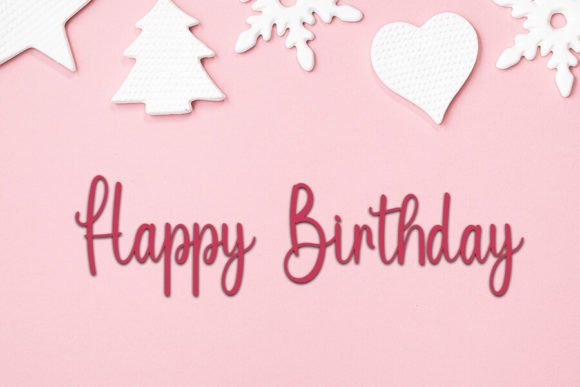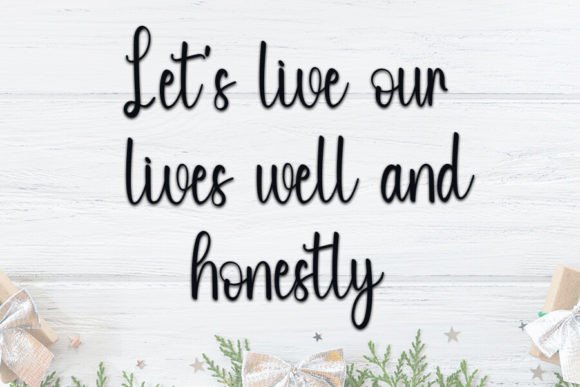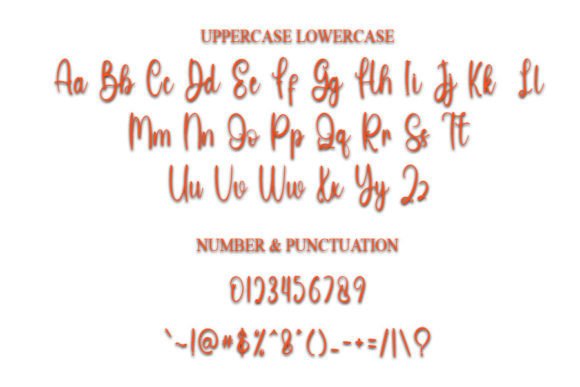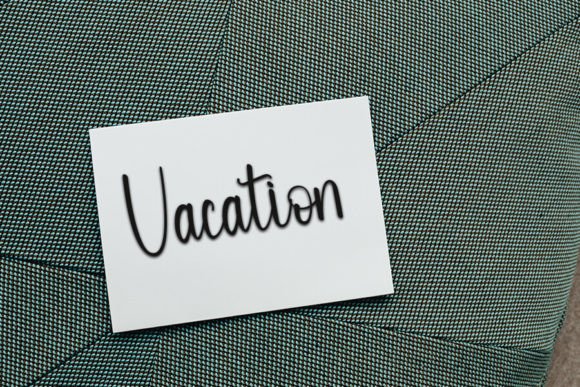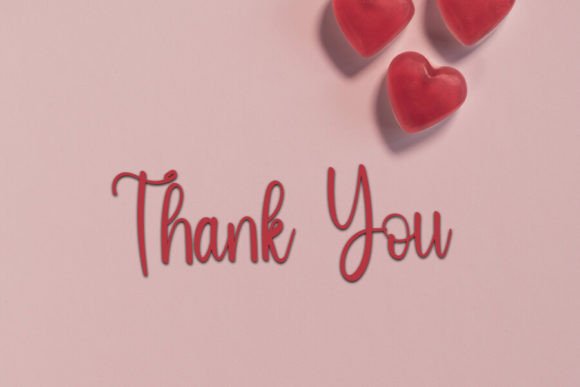
Deck the Halls with Beautiful Typography
There’s something magical about designing for the holiday season. The twinkling lights, the cozy atmosphere, and the joy that fills the air – it’s a time when creativity knows no bounds. As designers, we love to get into the festive spirit, and what better way to do that than with a typeface that embodies the very essence of the season?
Enter the Beautiful Font, a festive and happy typeface that captures the magic of the holiday season. With its decorative elements and unique flair, this font adds a touch of charm to your designs, making it perfect for greeting cards, gift labels, and holiday-themed projects. The Beautiful Font is more than just a pretty face – it’s a valuable tool for designers who want to bring a cheerful and nostalgic atmosphere to their words.
- Unique Characteristic: Beautiful Font features a unique blend of modern and elegant design elements, making it perfect for creating visually appealing documents and designs.
Beautiful Font Review
Overall, I’m quite impressed with “Beautiful Font”. It has a certain charm that’s hard to ignore. ✨ The font is versatile and can be used for both body text and headings, making it a great choice for a wide range of projects.
The font’s character set is extensive, with a wide range of languages supported. This makes it an excellent choice for projects that require multilingual support. Additionally, the font’s customization options are plentiful, allowing users to fine-tune the font to suit their specific needs. ✨
- Extensive character set, supporting multiple languages
- Plentiful customization options
- Great for both body text and headings
Overall, I would recommend “Beautiful Font” to designers who are looking for a versatile and customizable font for their projects. While it may have some limitations, its strengths far outweigh its weaknesses.
Beautiful Font is commonly used in:
- Graphic design and branding projects.
- Print and digital marketing materials.
- Presentations and reports.
Alternatives to “Beautiful Font” for Designers
Lato is a clean and modern sans-serif font. It is suitable for use in body text, headings, and titles. Lato is a good alternative to Beautiful Font as it has a similar clean and elegant feel, but with a more neutral and versatile design. Use Lato when you need a font that is easy to read and works well in a variety of contexts.
Montserrat is a geometric sans-serif font with a urban feel. It is ideal for use in headings, titles, and body text in a modern and sleek design. Montserrat is a good alternative to Beautiful Font as it has a similar modern feel, but with a more edgy and industrial design. Use Montserrat when you need a font that is bold and eye-catching.